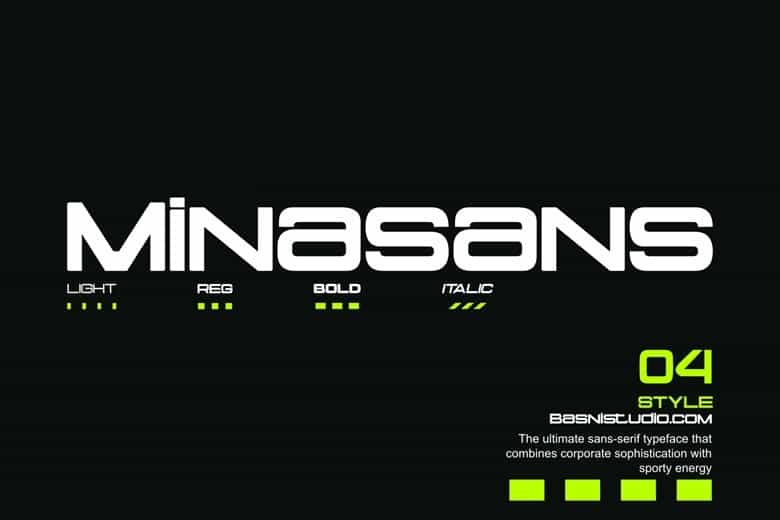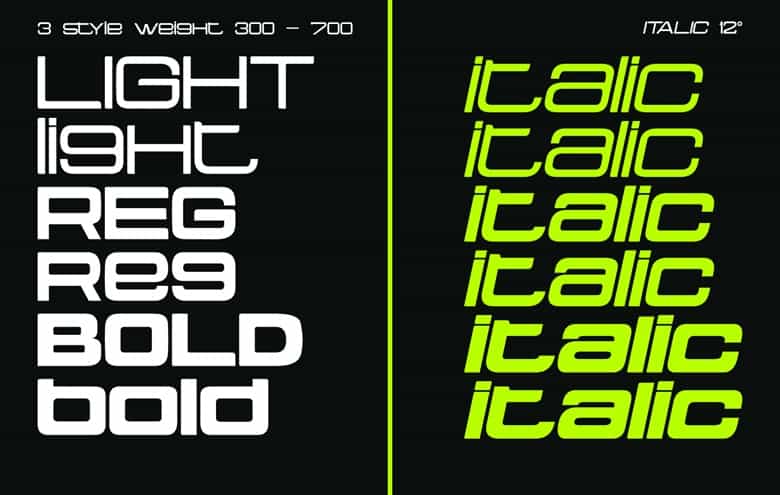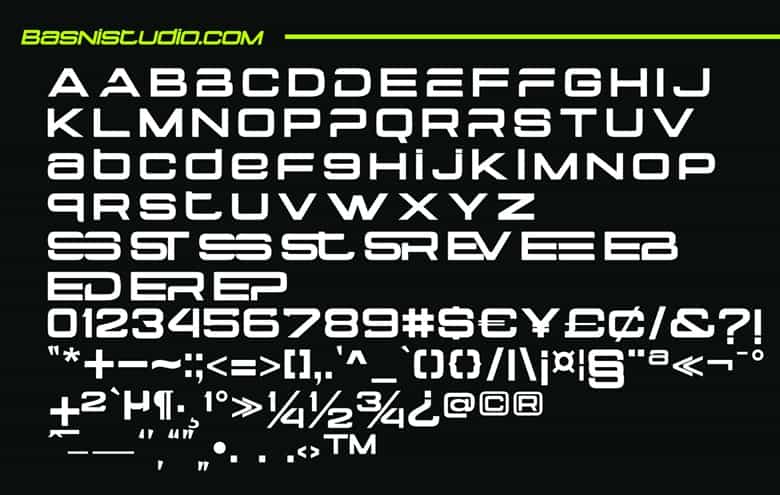
Minasans is a modern sans serif font with the look of a business-like typeface but with vibrant aspects of sporty look. It is perhaps perfect to use in developing a differentiation brand strategy, to design an inviting website or even to develop a set of powerful promotional materials – it is clear, confident and fast.